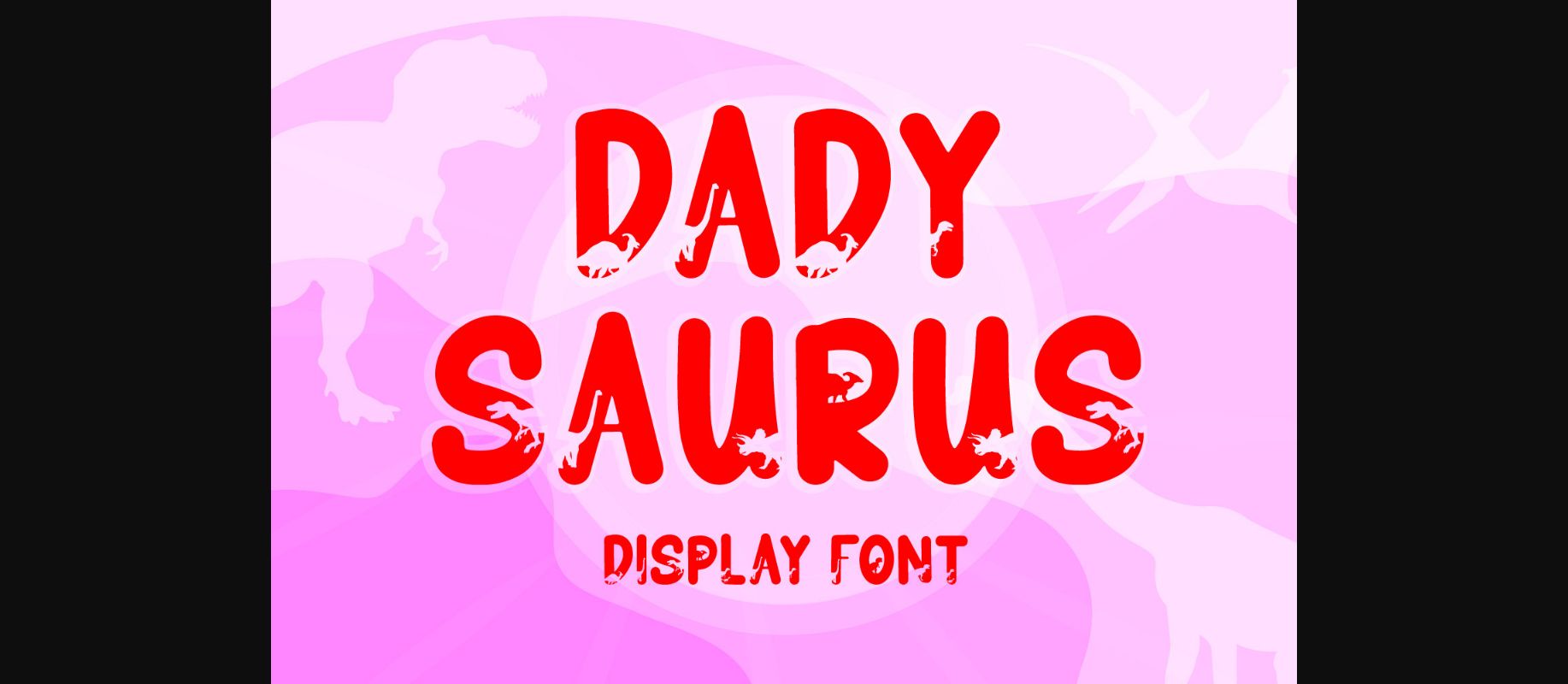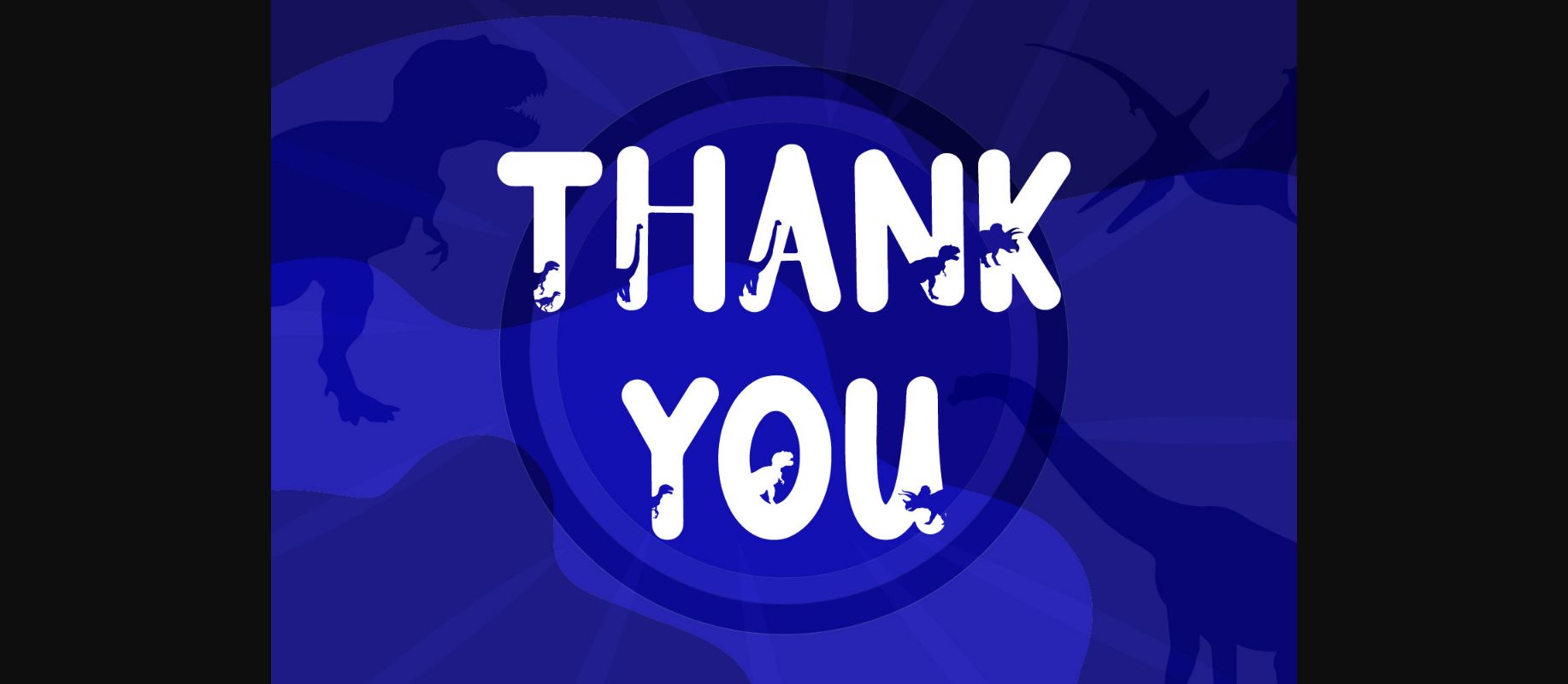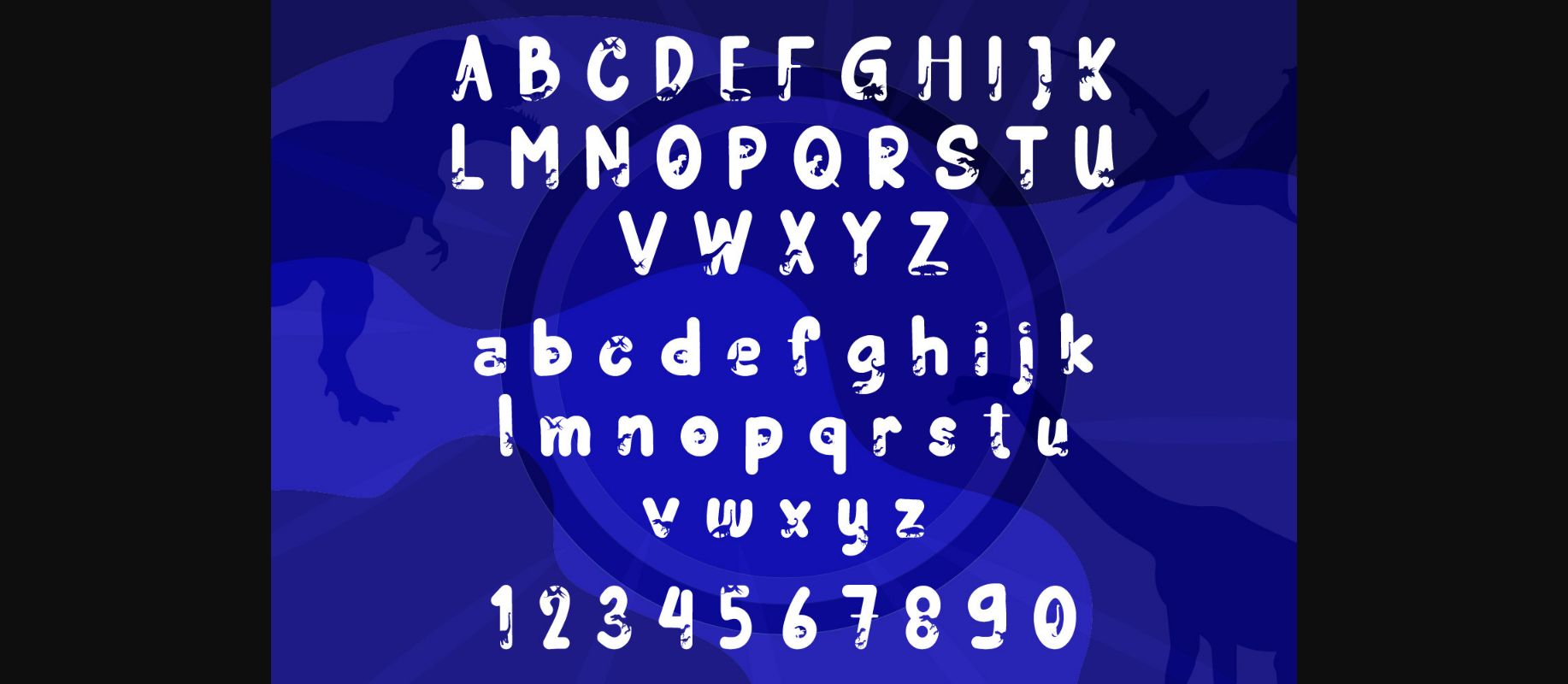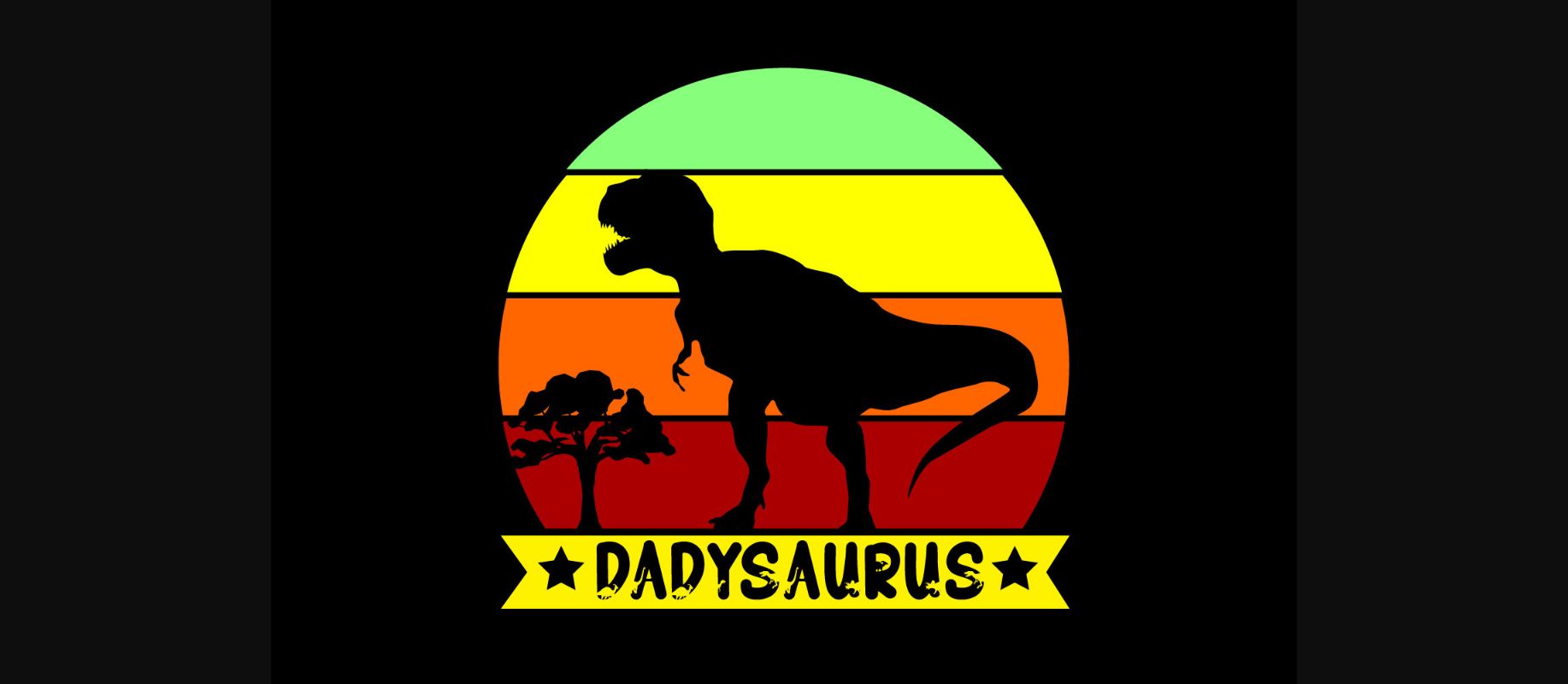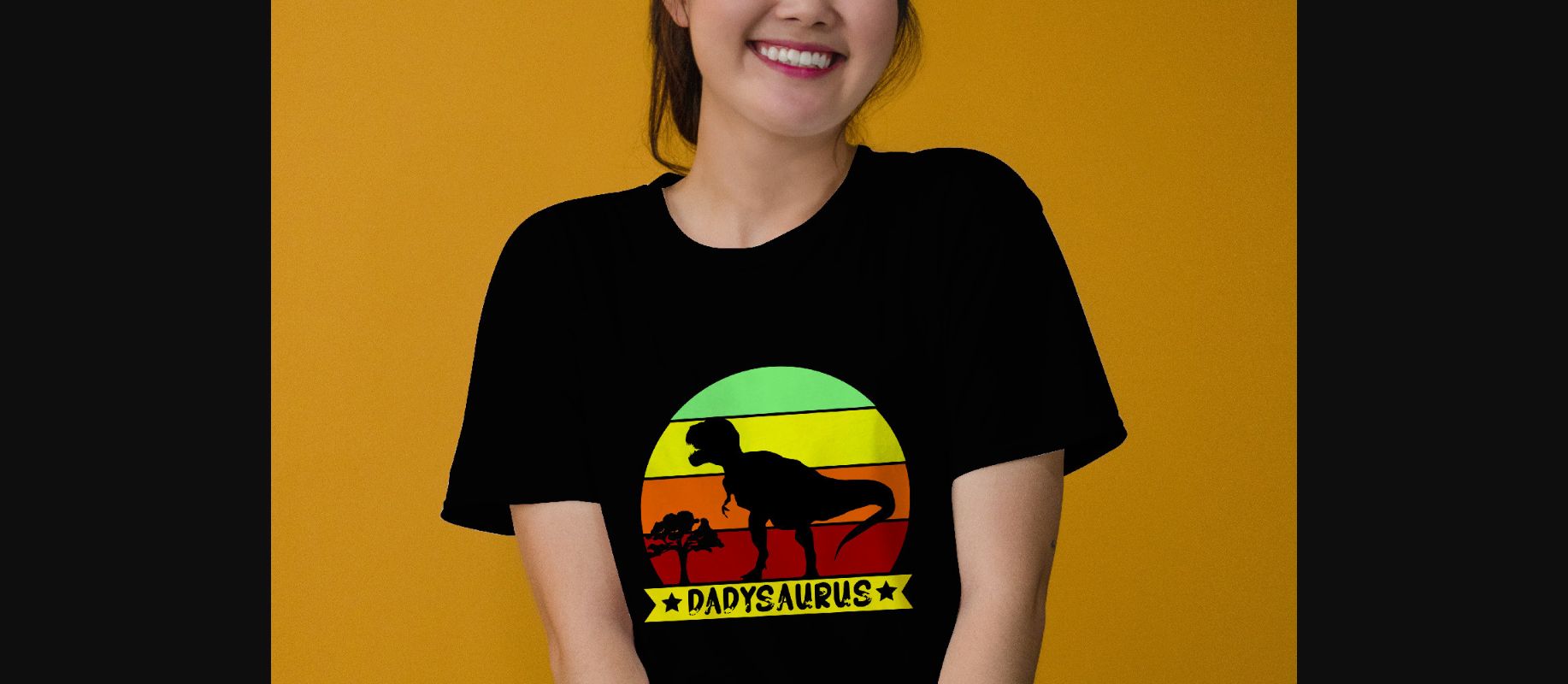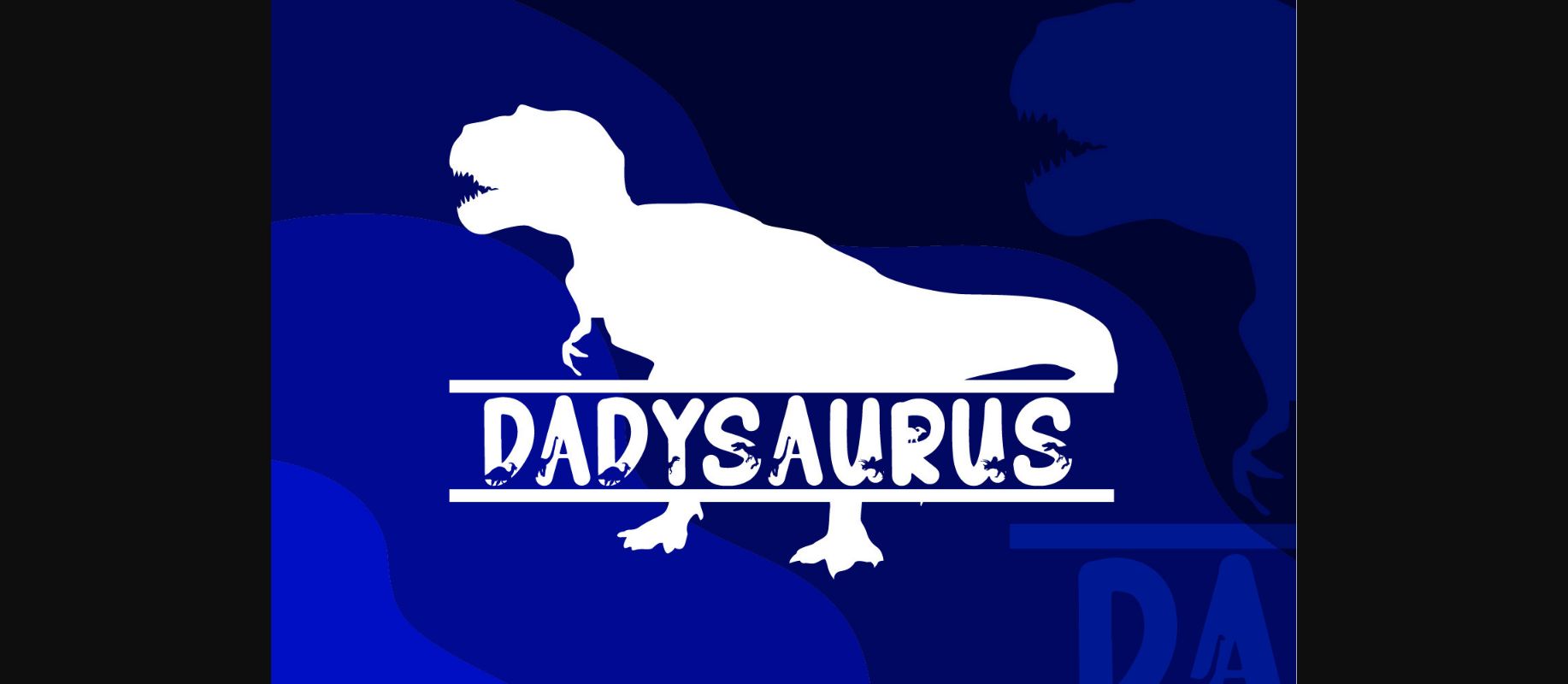
Dadysaurus Font
About Dadysaurus Font
Dadysaurus is a cute and playful decorative font. It embodies fun and authenticity and is the perfect choice for children’s activities, t-shirt designs, or other creative projects!